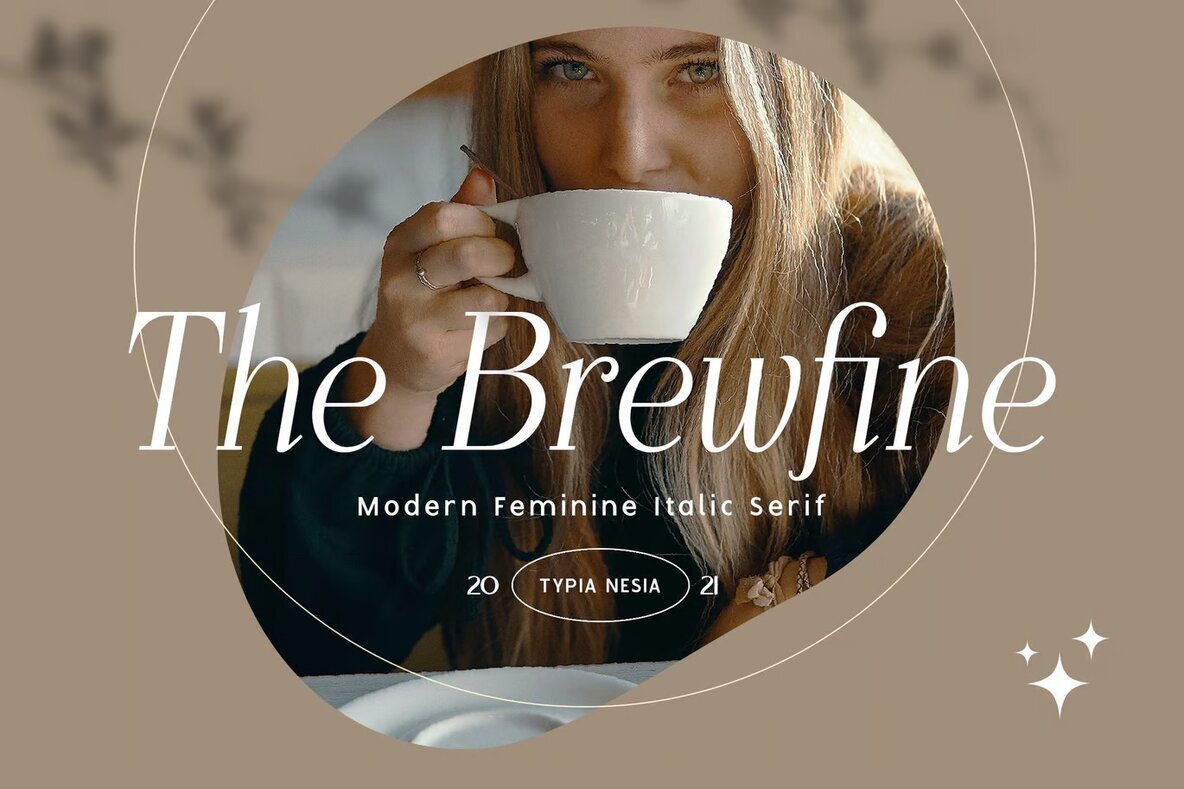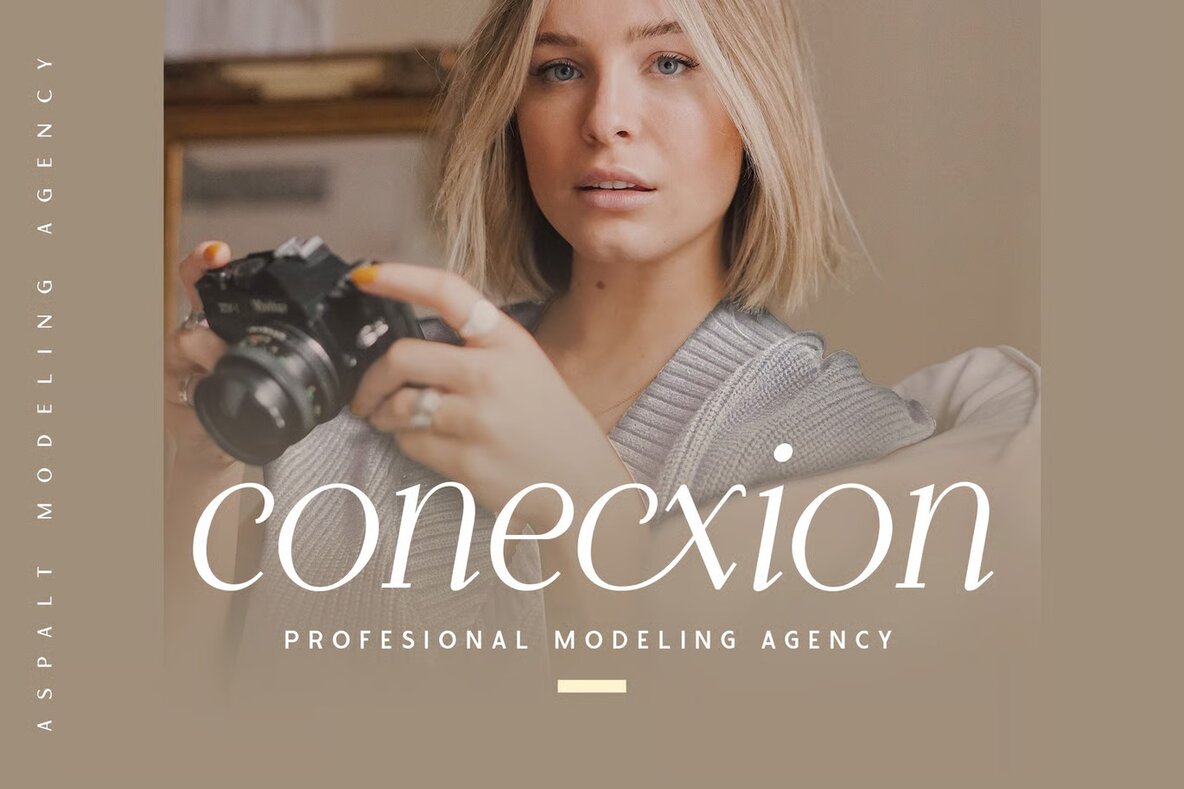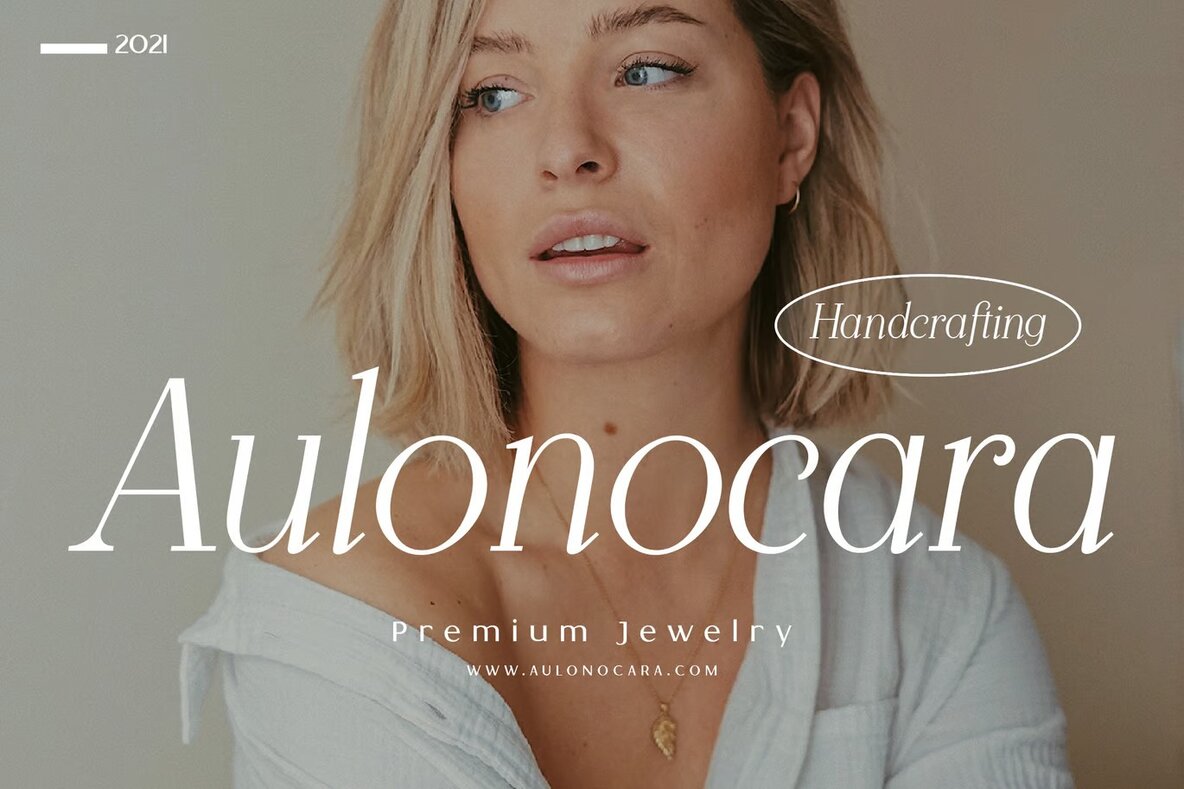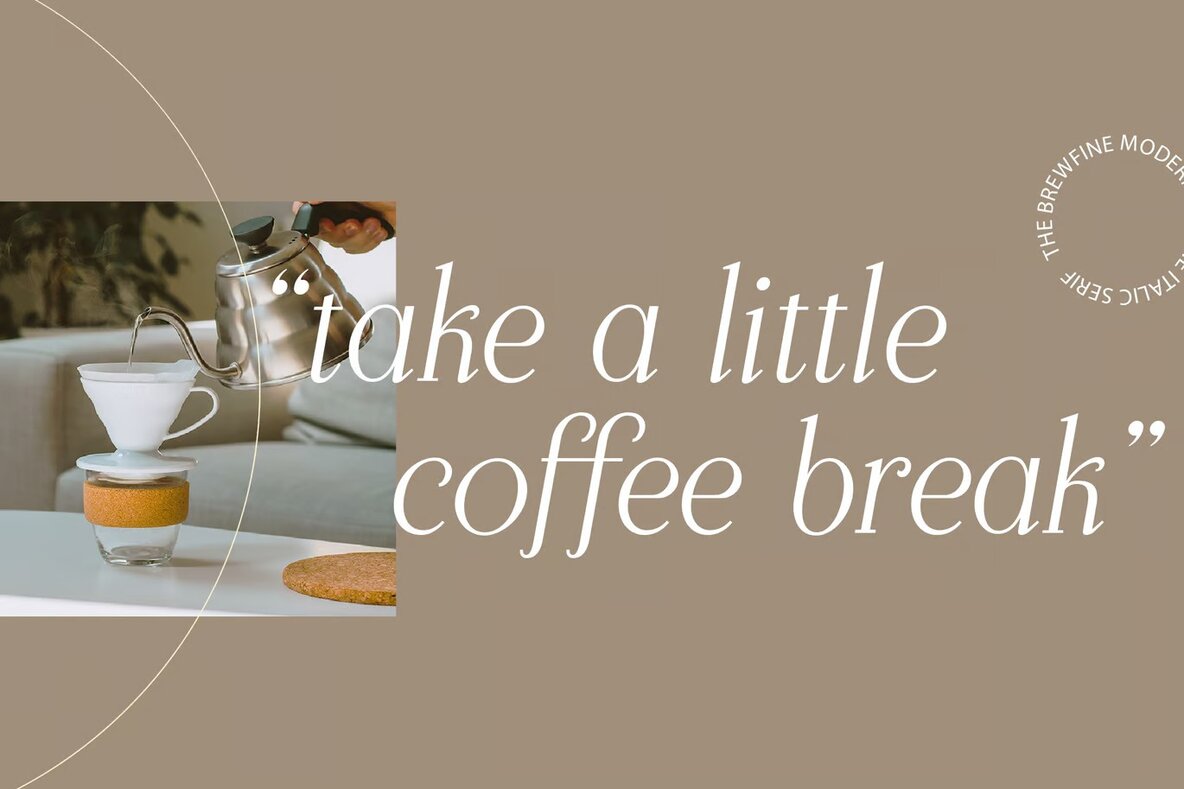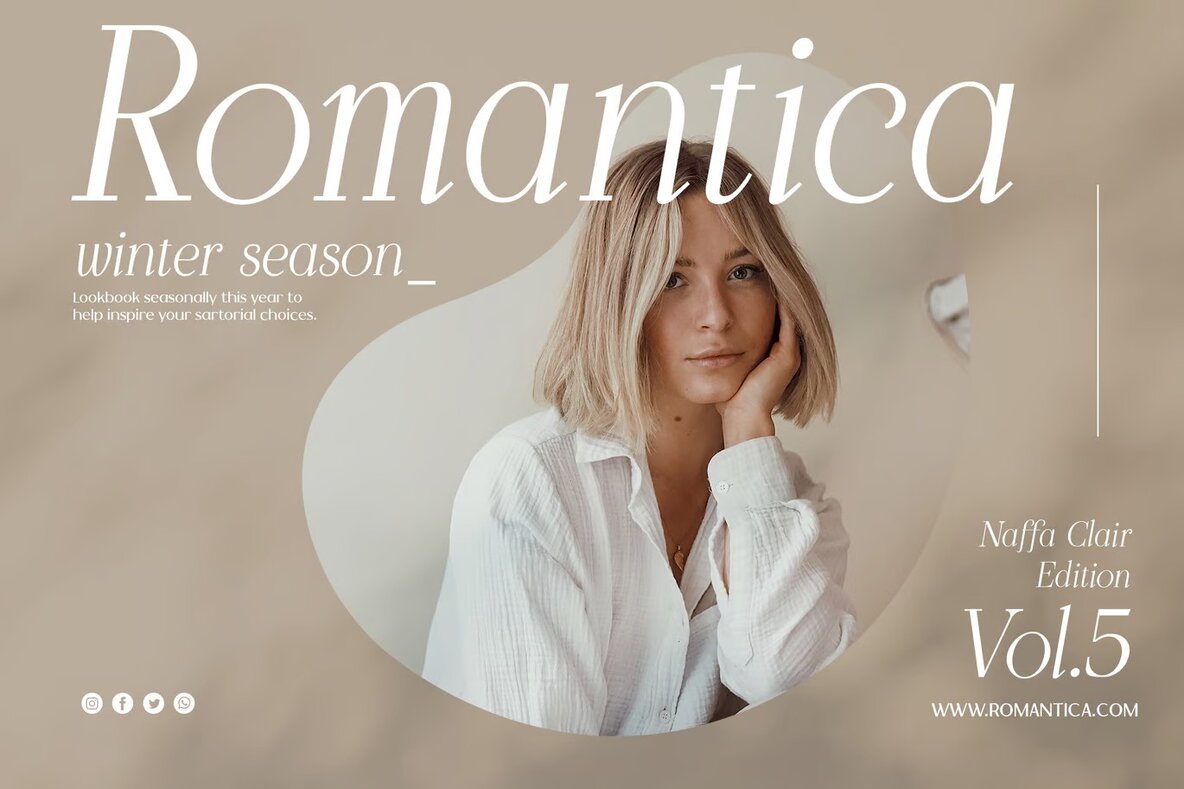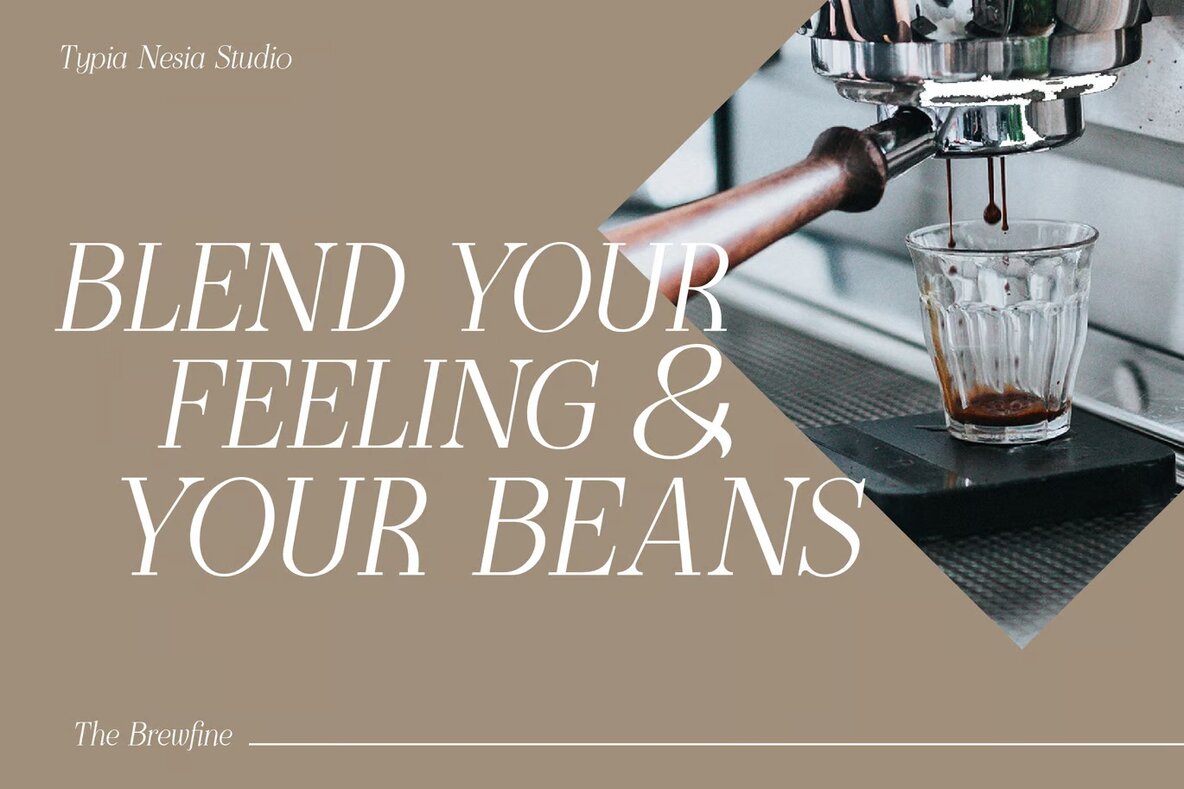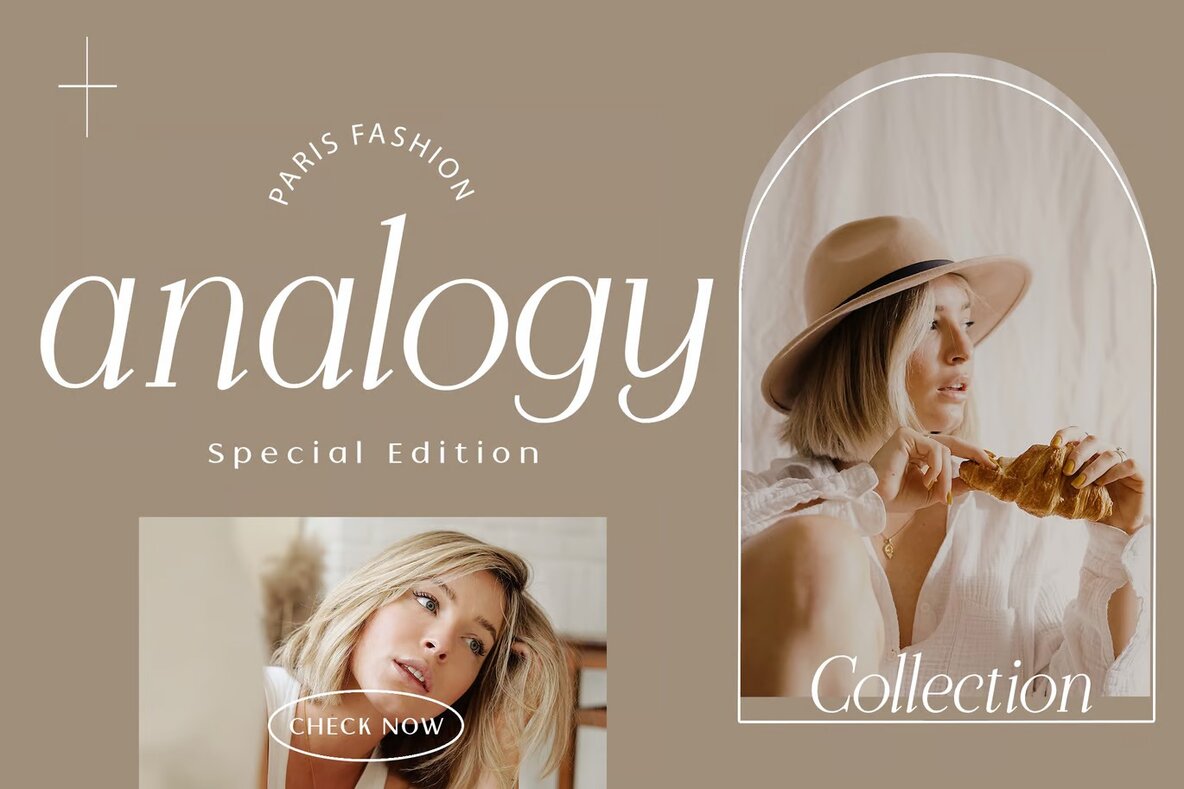
The Brewfine Font
The Brewfine Italic
The Brewfine is a contemporary feminine italic serif font that exudes elegance and sophistication. Designed with versatility in mind, it includes a selection of alternates and ligatures, allowing for creative typography designs. Ideal for various design projects, this font perfectly complements luxury logos, editorial layouts, and high-end branding initiatives.
Whether you're crafting a captivating magazine spread or developing chic promotional materials for fashion and cosmetics, The Brewfine adds a touch of class. Its refined aesthetic is also well-suited for art galleries, architectural exhibitions, and boutique branding. Enhance your stationery, blog design, invitations, and home décor projects with this timeless typeface.